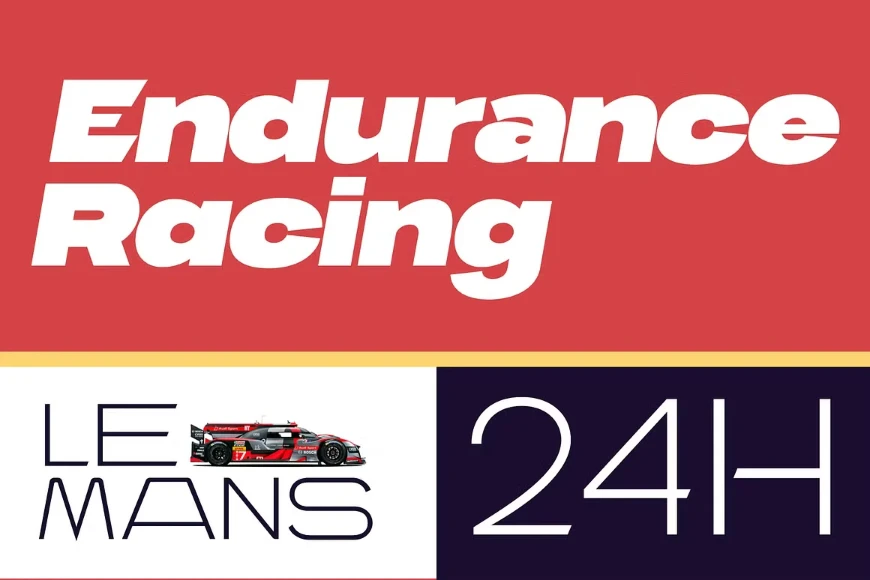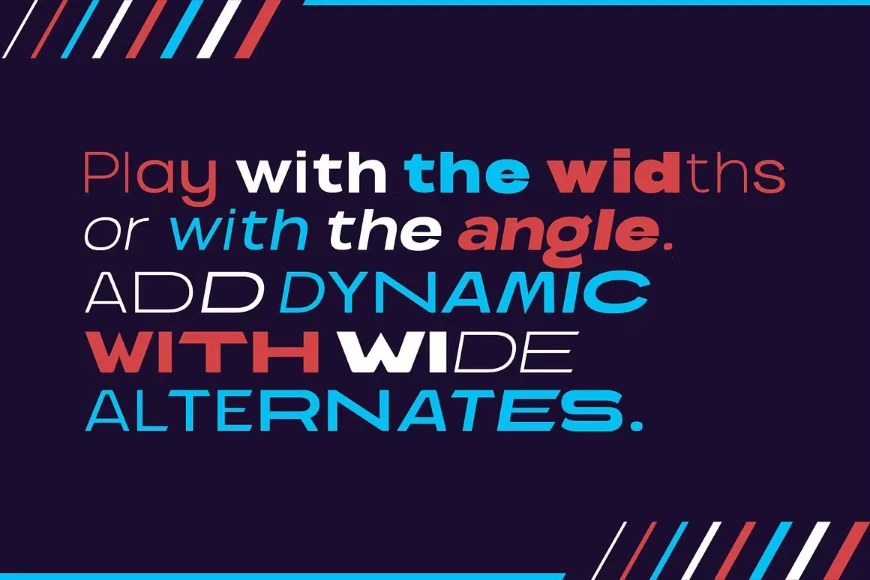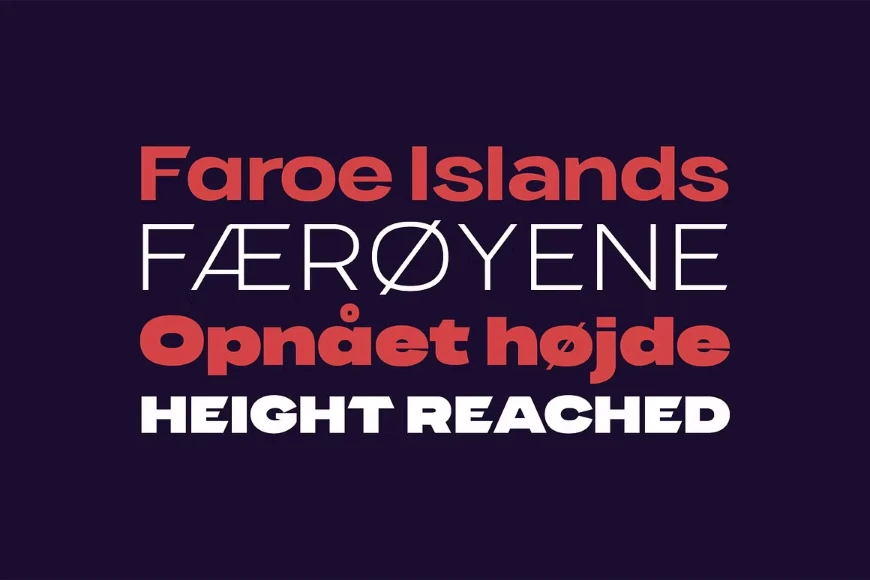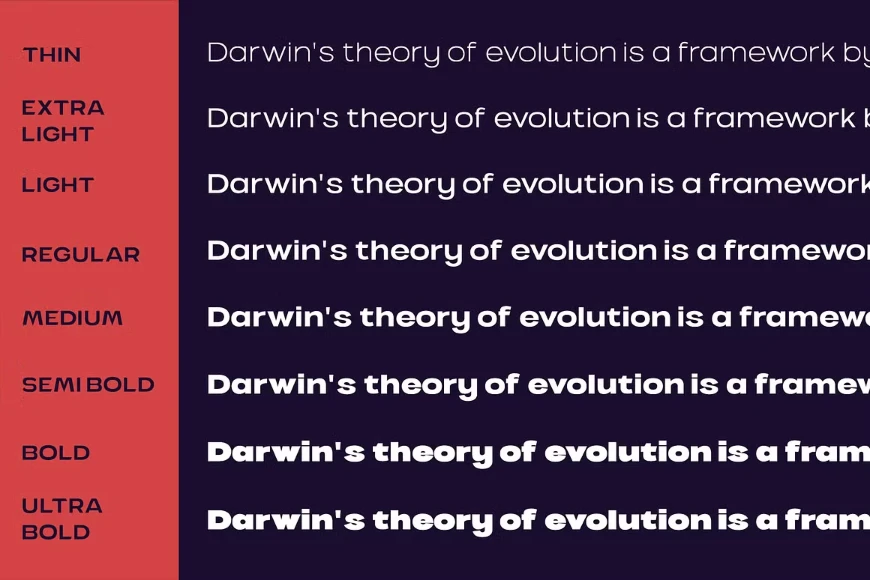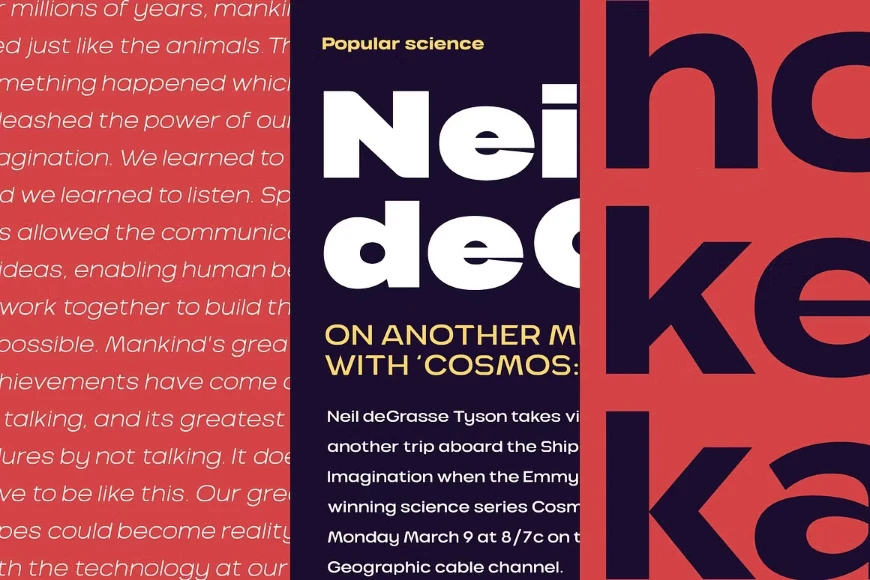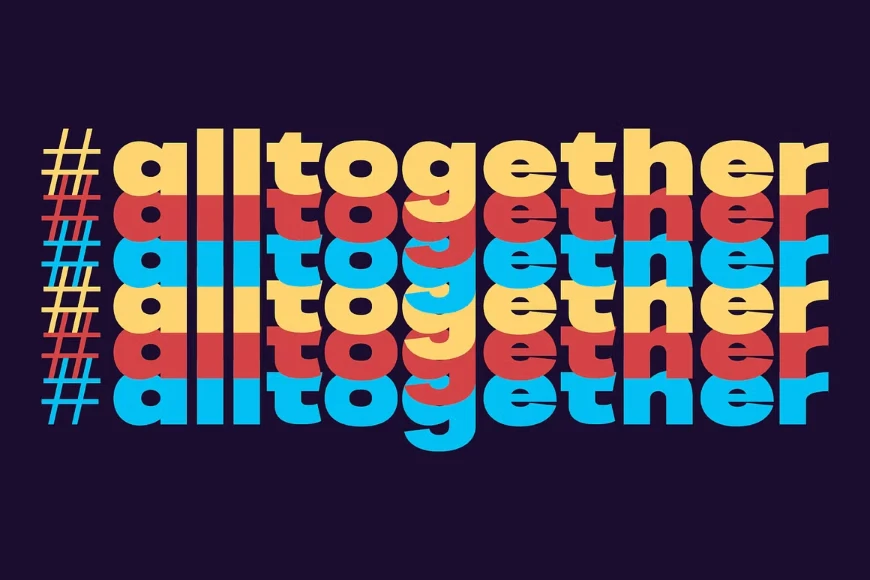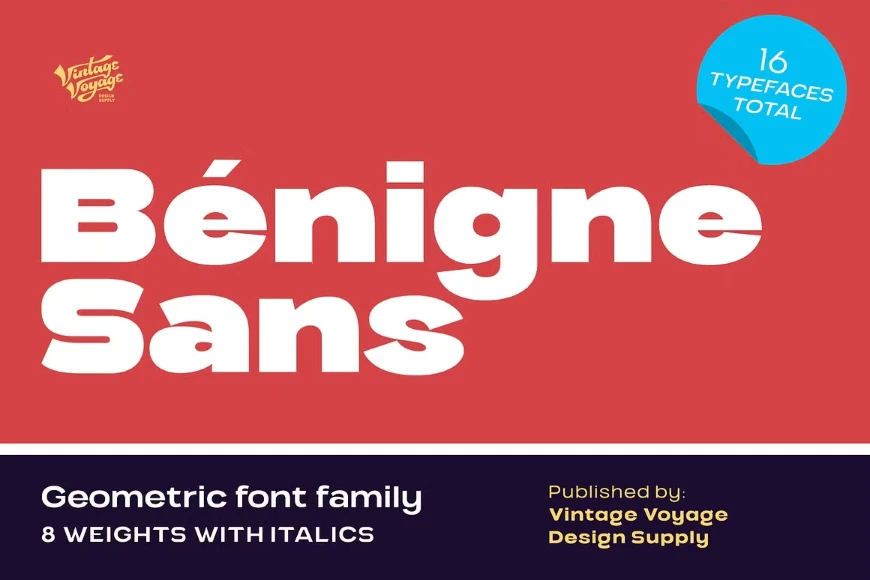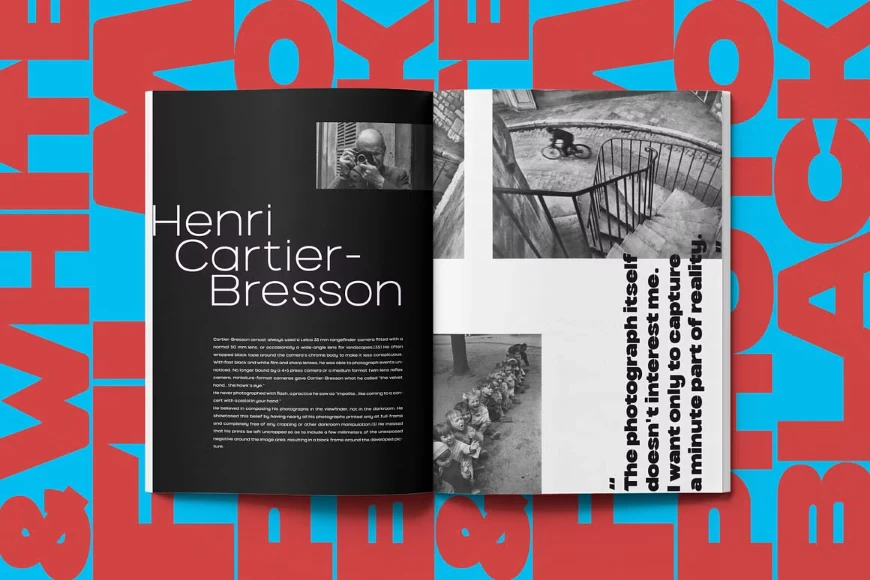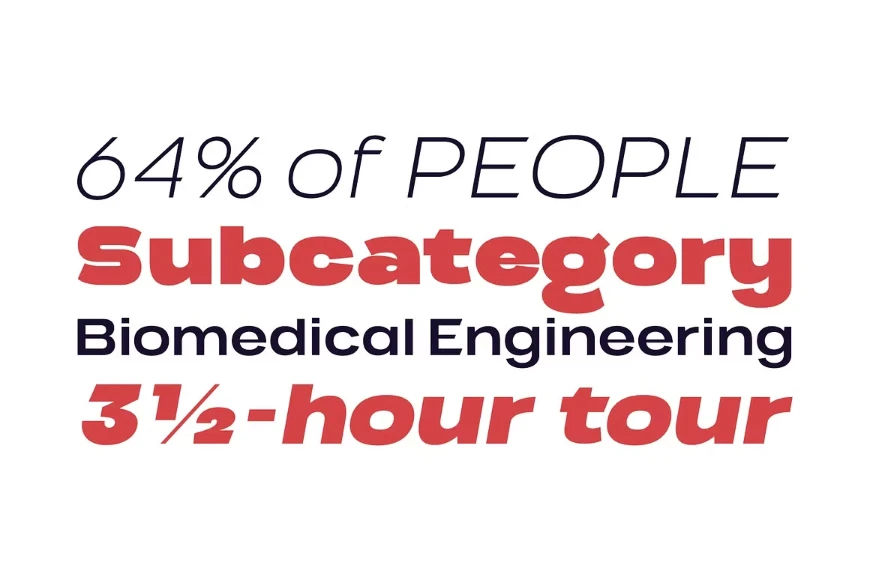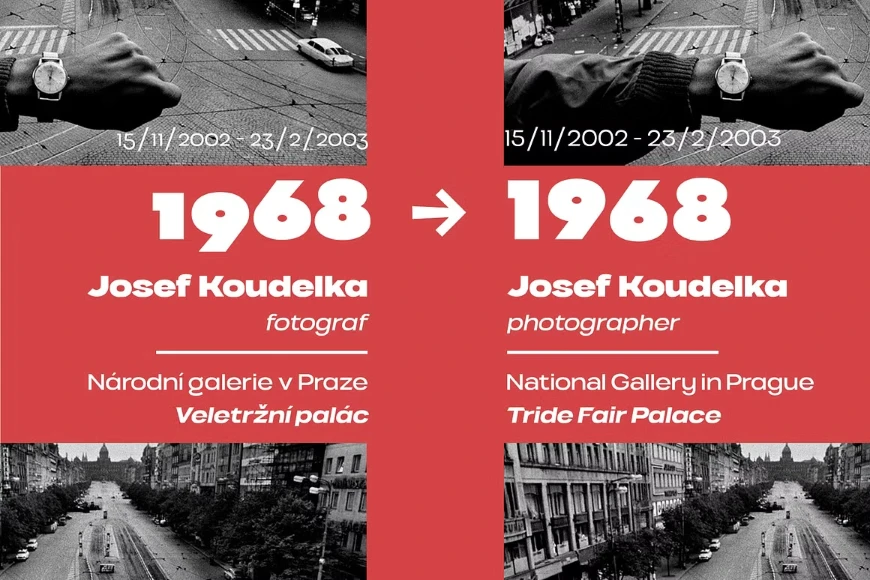
Benigne Sans
Benigne Sans is a geometric font family with eight weights from Thin to Ultra Bold, each paired with matching italics. Offers a smooth balance from delicate to bold, making it versatile for headers, sub-headers, and block text. Designed with clean, modern proportions for clarity and impact. Well-suited for infographics, editorial layouts, branding, and web use. Includes features like ligatures, alternates, old style numerals, and fractions for added flexibility. Crafted for projects that need both function and style.